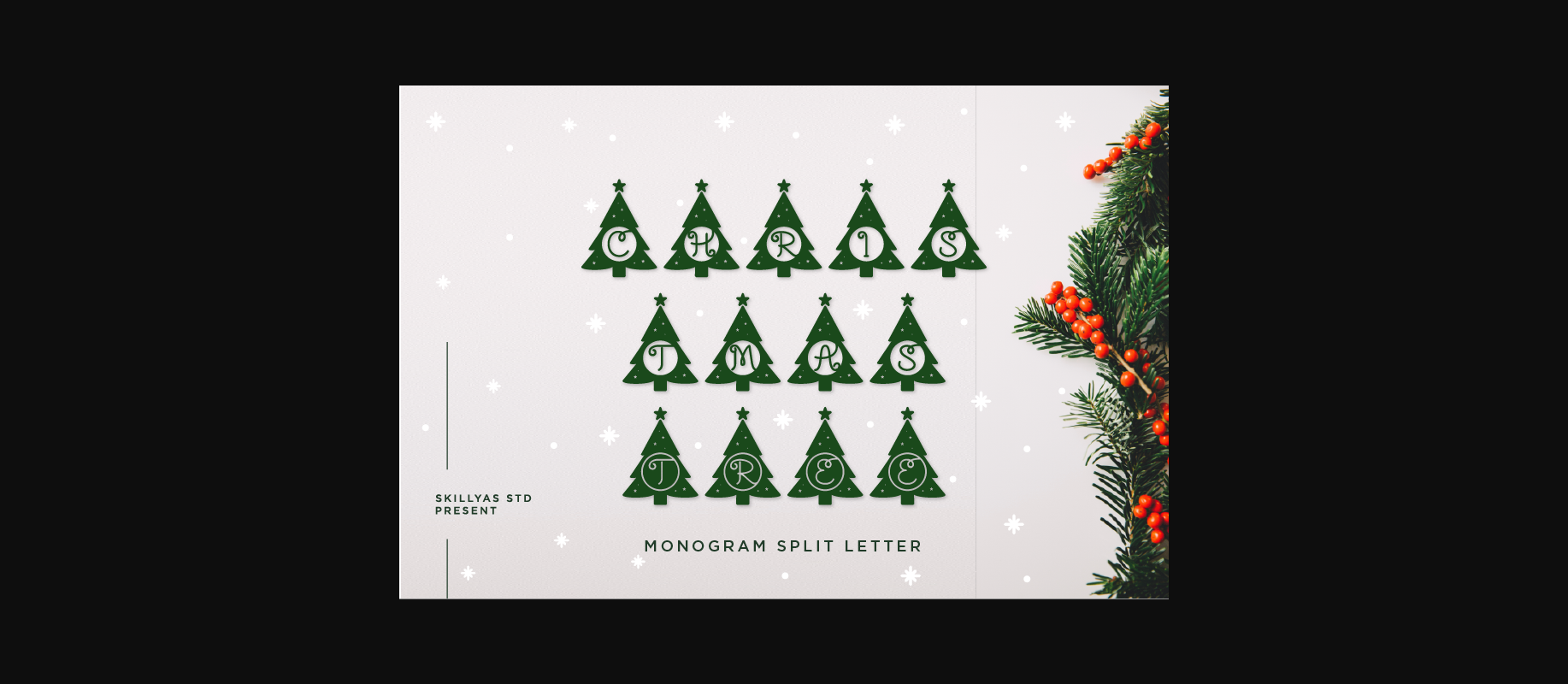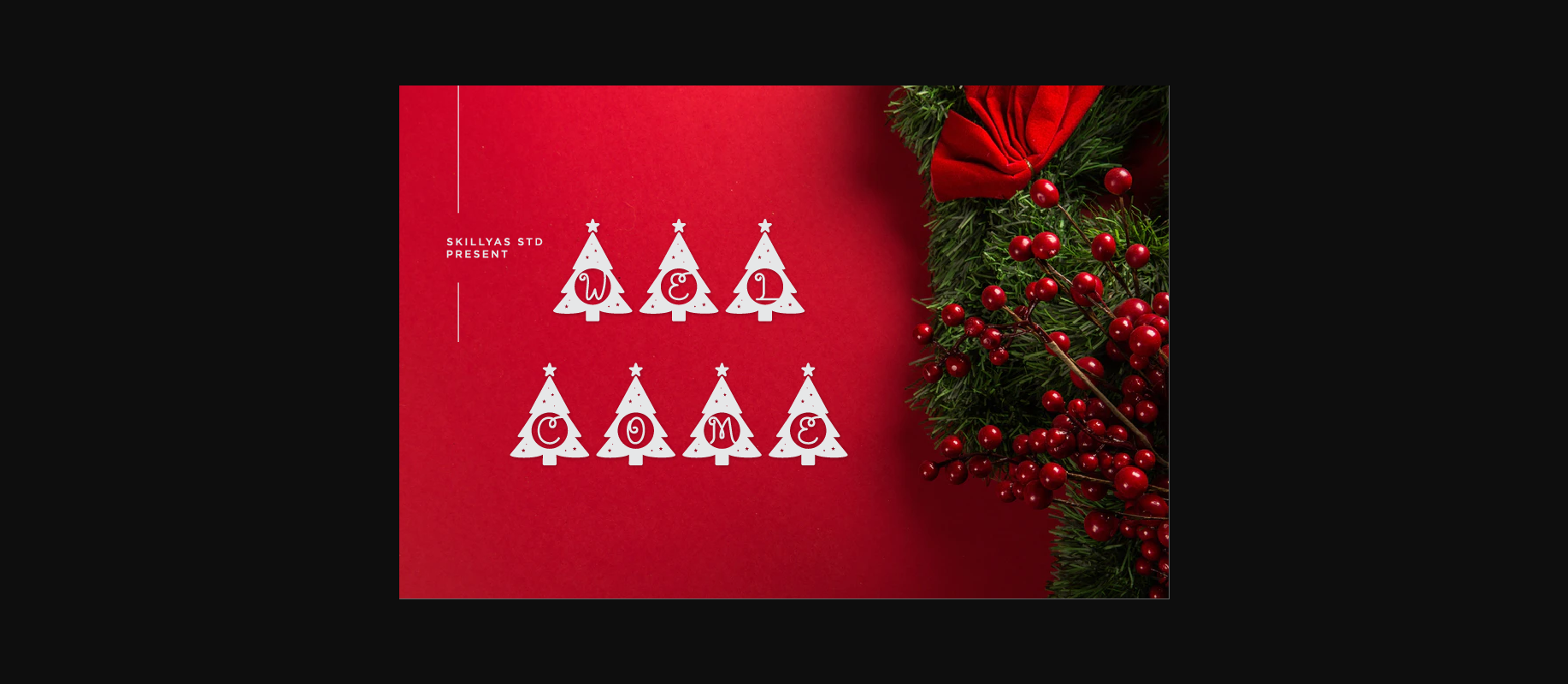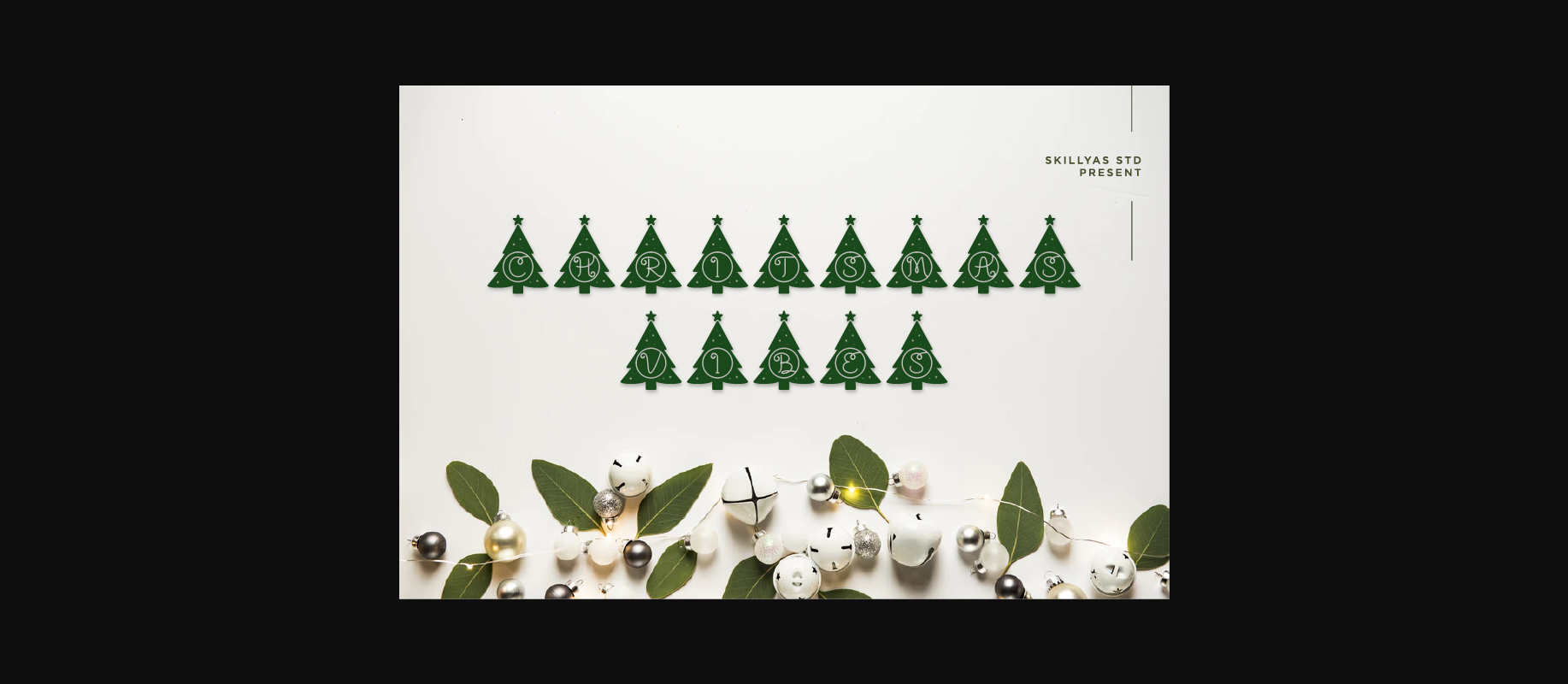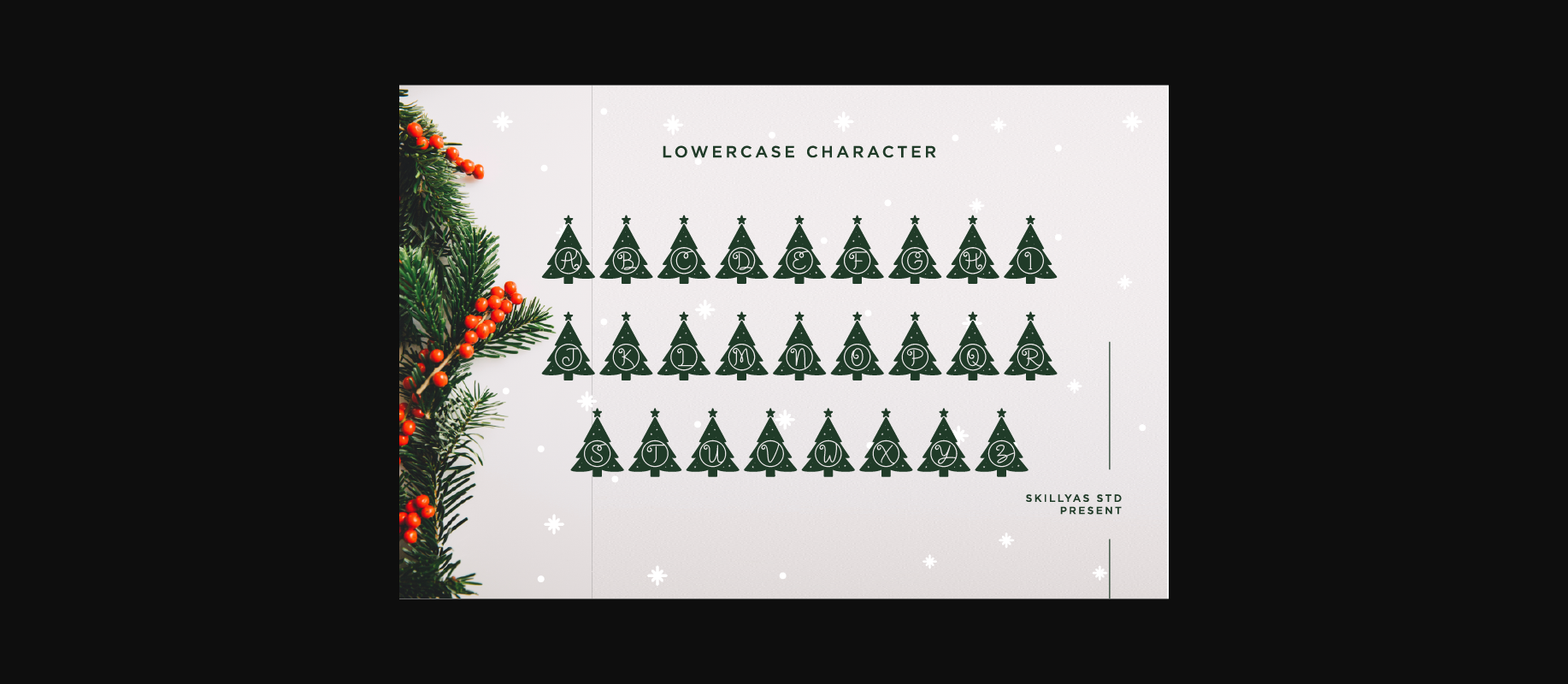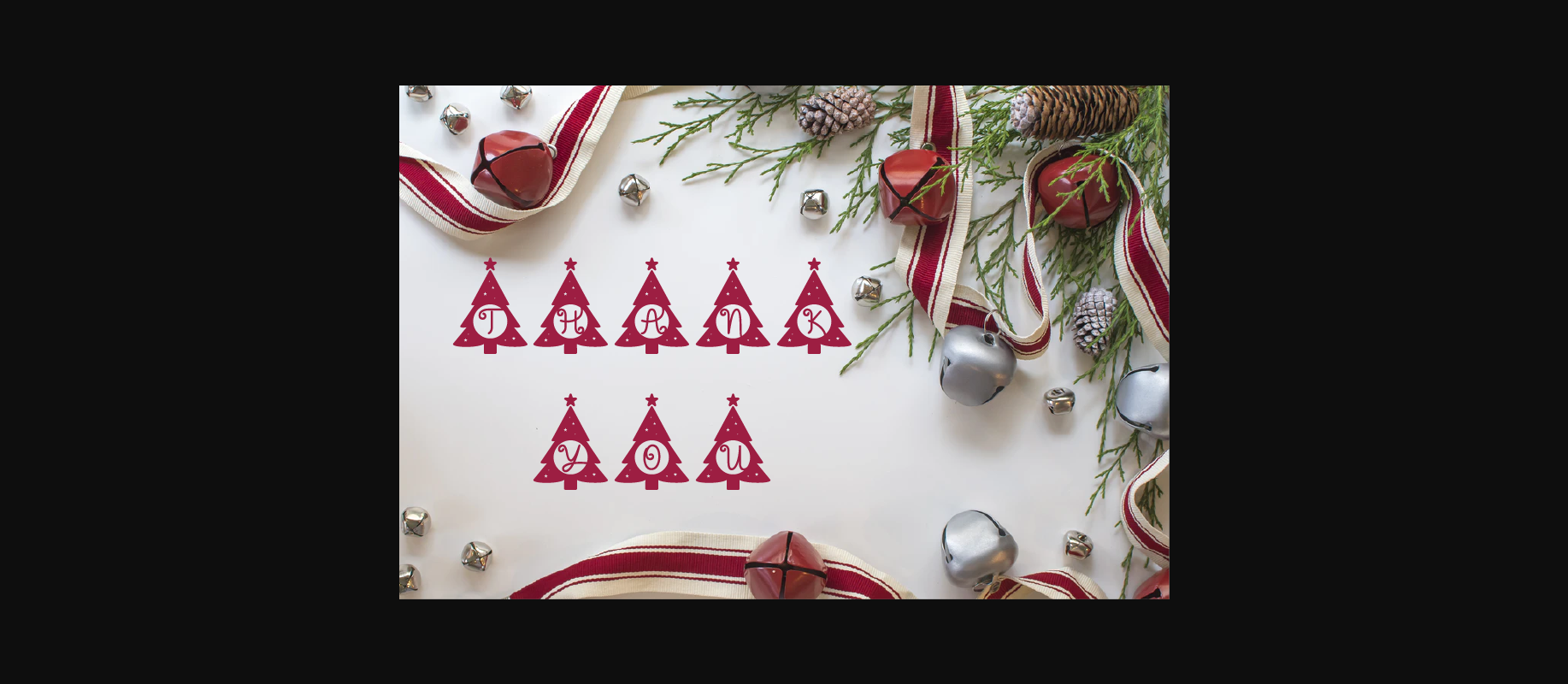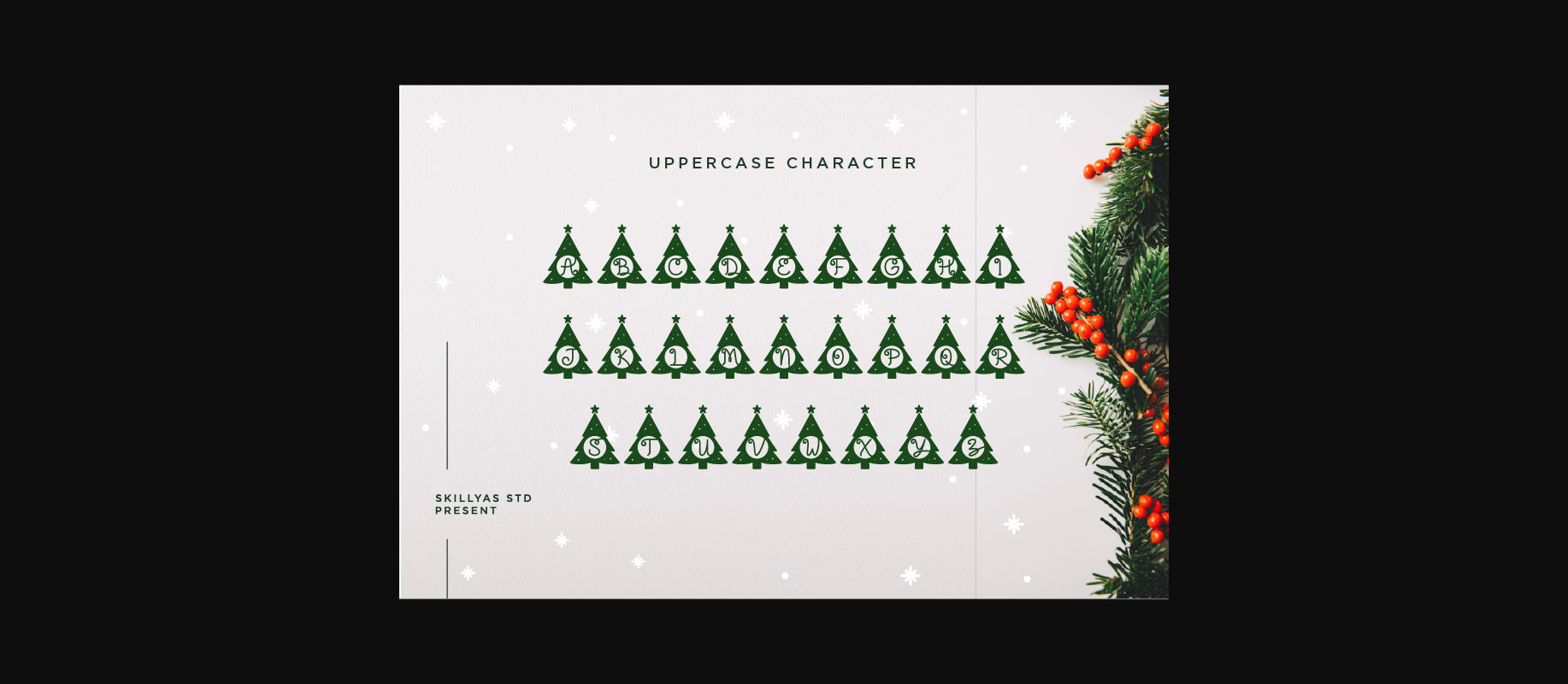
HomeDecorative FontsChristmas Tree Monogram Font Decorative Fonts Christmas Tree Monogram Font FacebookXPinterestWhatsApp 1 of 8 ... Christmas Tree Monogram Font Poster 2... Christmas Tree Monogram Font Poster 3... Christmas Tree Monogram Font Poster 4... Christmas Tree Monogram Font Poster 5... Christmas Tree Monogram Font Poster 6... Christmas Tree Monogram Font Poster 7... Christmas Tree Monogram Font Poster 8... About Christmas Tree Monogram Font Christmas Tree Monogram is a lovely decorative font. Add it to each of your winter holiday designs and you will fall for the ravishing results. DOWNLOAD NOW People also explored Wijilan Font Wonderland Font Buonanotte Font Kohm – Vintage Font Mailynda Font Signature Font Berry Bella Canvas 3001 T Shirt Mockup Micheline Font Daisy Font 298 0 TagsChristmas Tree Monogram Font Previous articleBrutus Elf Leg Monogram FontNext articleMonogram Permailove Font LEAVE A REPLY Cancel reply Comment: Please enter your comment! Name:* Please enter your name here Email:* You have entered an incorrect email address! Please enter your email address here Website: Save my name, email, and website in this browser for the next time I comment. Personal Use Free Baby Magnolia Personal Use Free Read more about this font Hommy You Personal Use Free Read more about this font ABC Personal Use Free Read more about this font Boby Personal Use Free Read more about this font BLOG Fonts That Capture the Spirit of New York City New York City is more than just a place—it’s an experience, a rhythm, a visual language... Elegant Wedding Invitation Fonts – Handwritten & Script Fonts Using Fonts in Digital Marketing: Tips to Strengthen Your Brand Identity Top 7 Google Fonts Alternatives for Faster and Privacy-Friendly Web Design (2025)